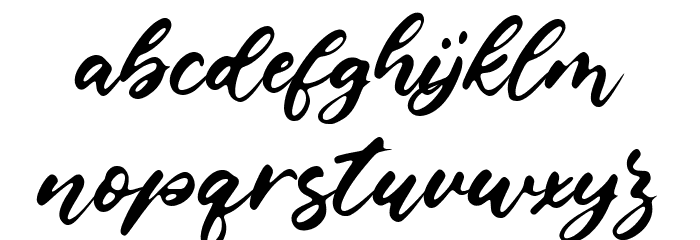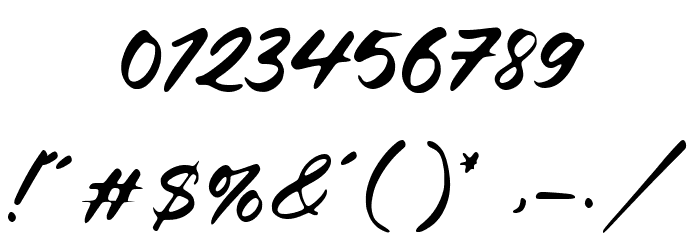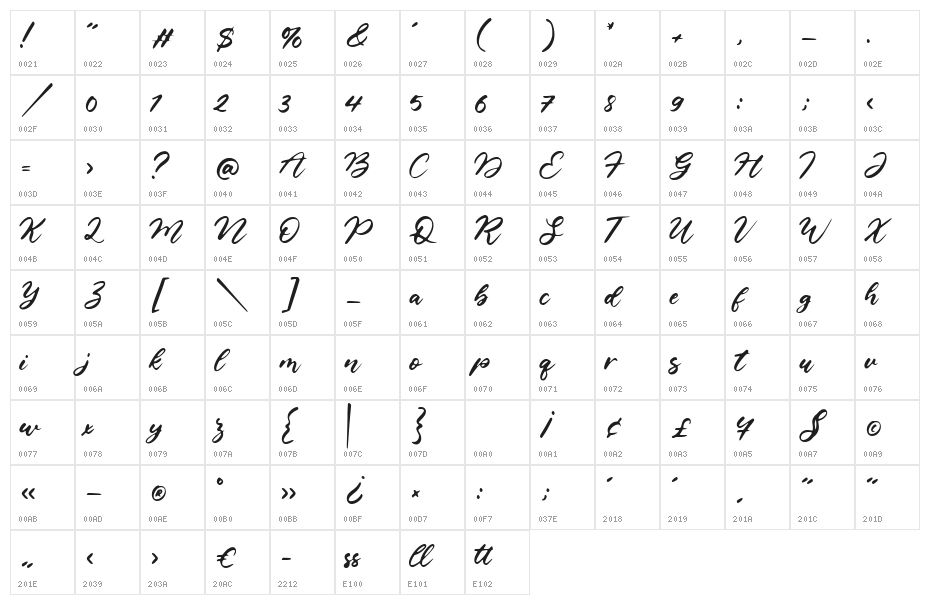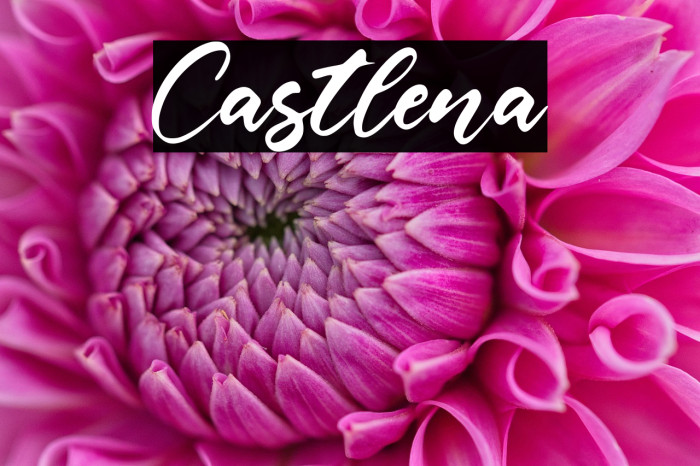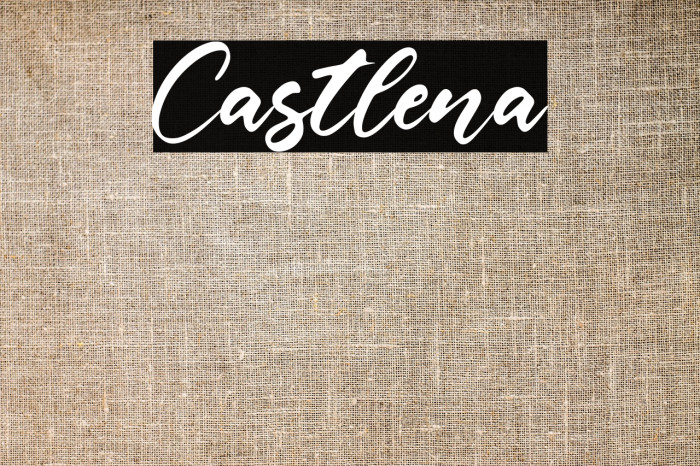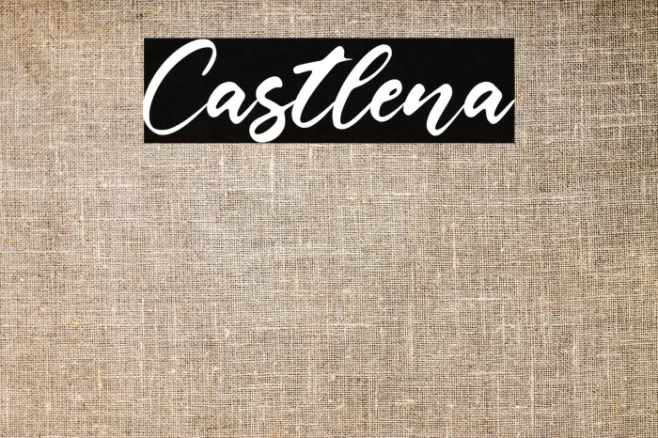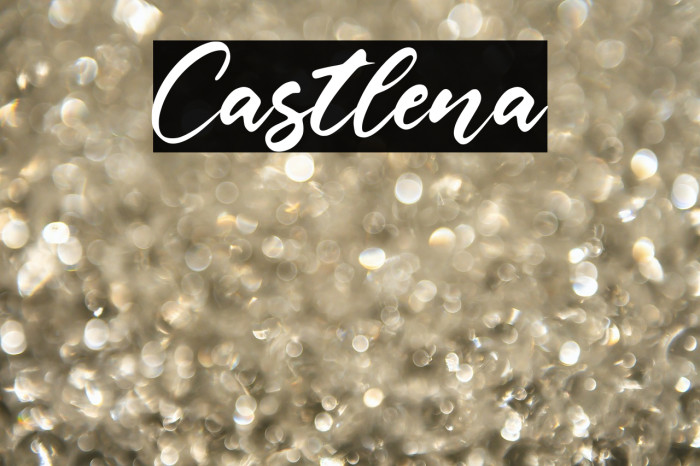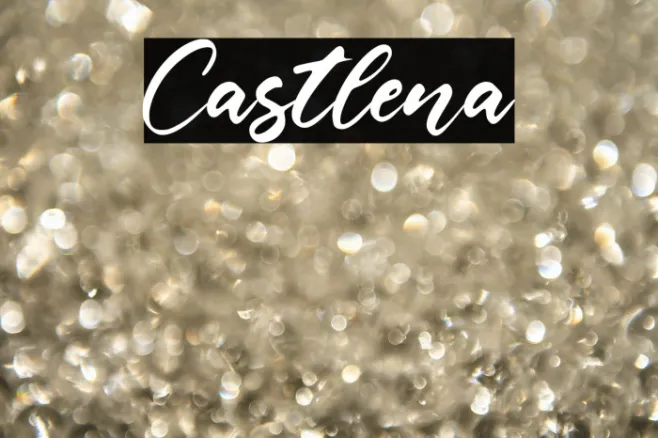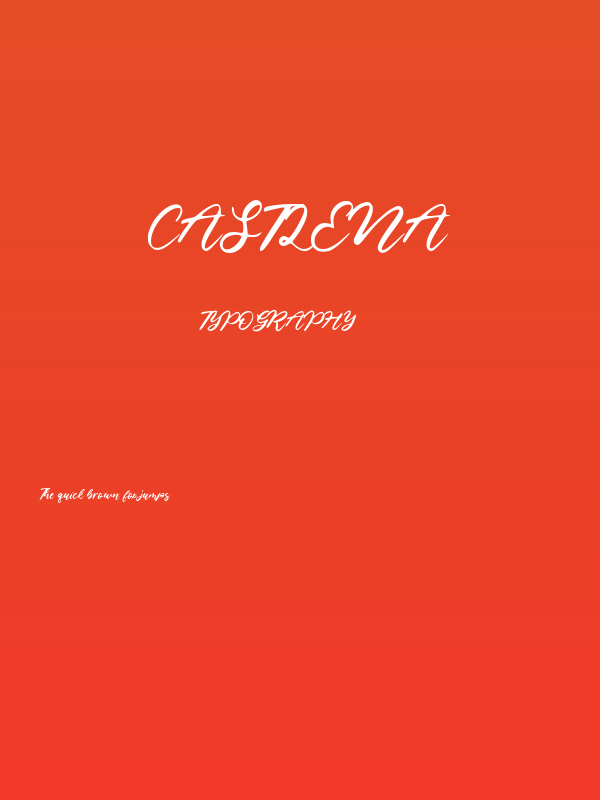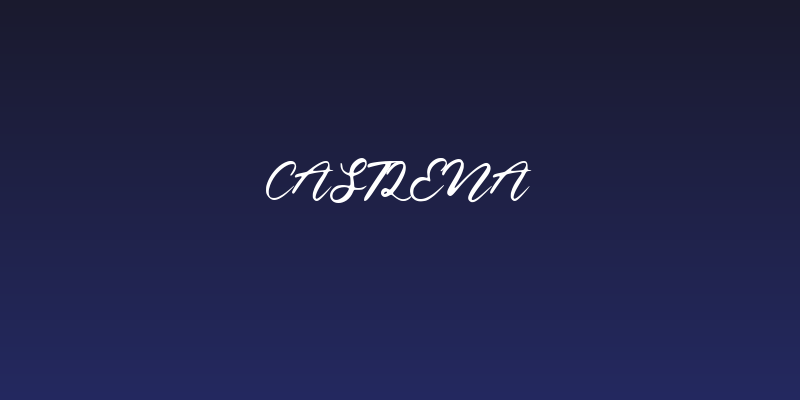
Castlena Font
This elegant script font features flowing, cursive strokes that convey a sense of sophistication and fluidity. The uppercase letters are bold and sweeping, with intricate loops and curves that add a touch of drama. The lowercase letters maintain a consistent flow, enhancing readability while retaining the font's graceful style. Numbers and special characters are designed with the same attention to detail, ensuring a cohesive look across all text elements. The font's overall appearance is both classic and modern, making it versatile for various design applications.
A sophisticated script font with flowing, cursive strokes and elegant curves.
- Proposed Projects: Ideal for wedding invitations, elegant branding, greeting cards, and upscale packaging.
- Category: Script
- Overall Style: Classic
- Use Case: Logos, Invitations, Branding